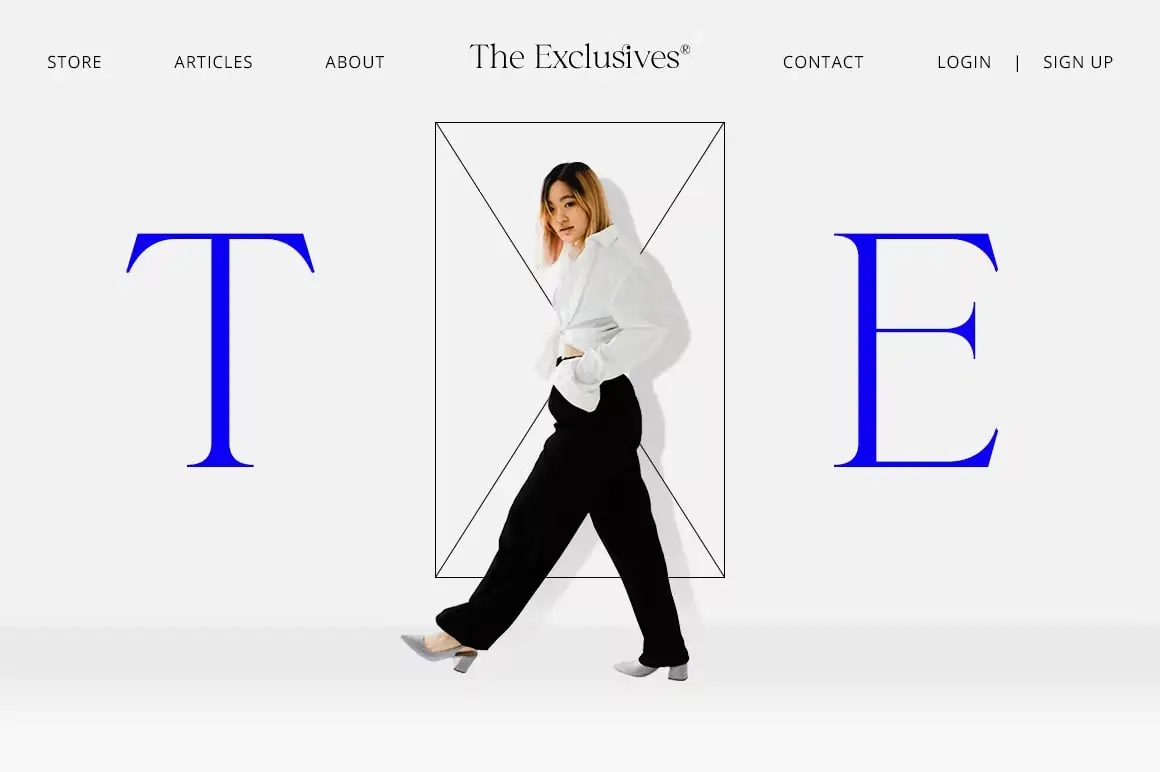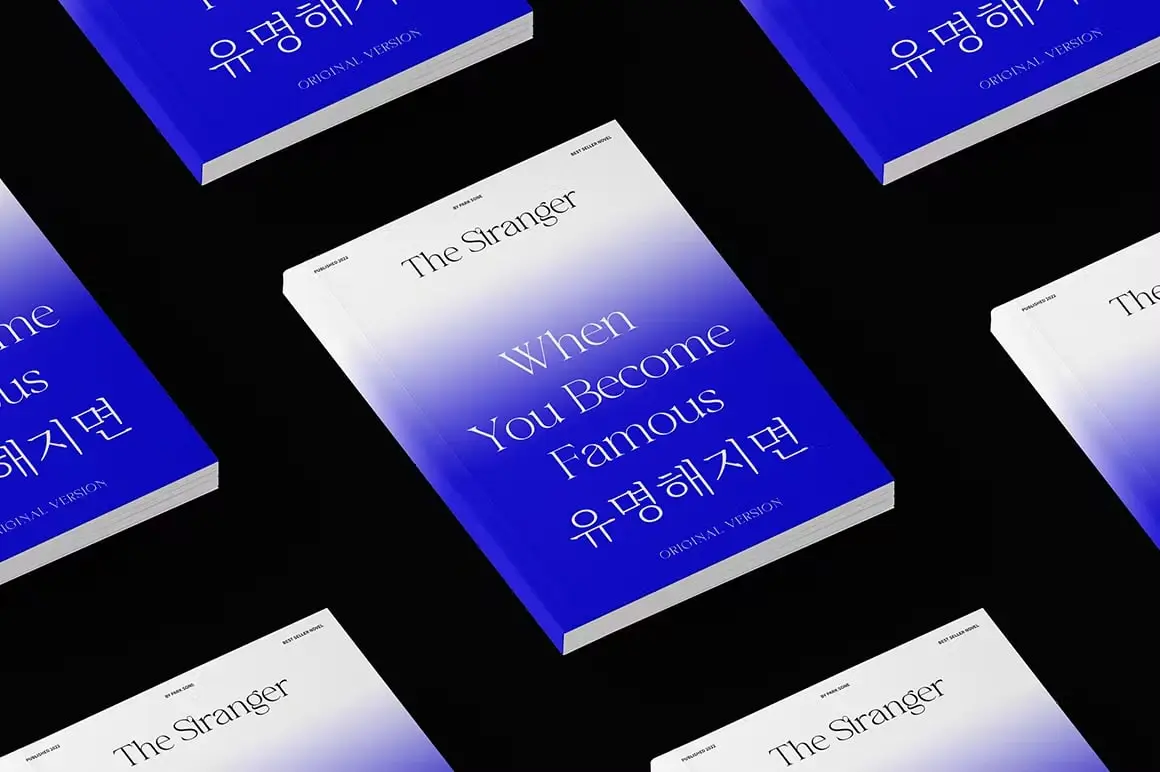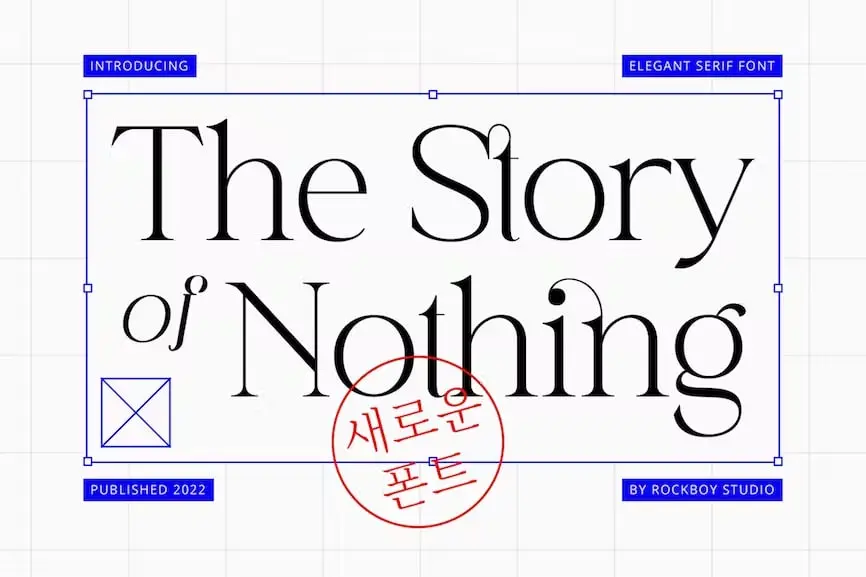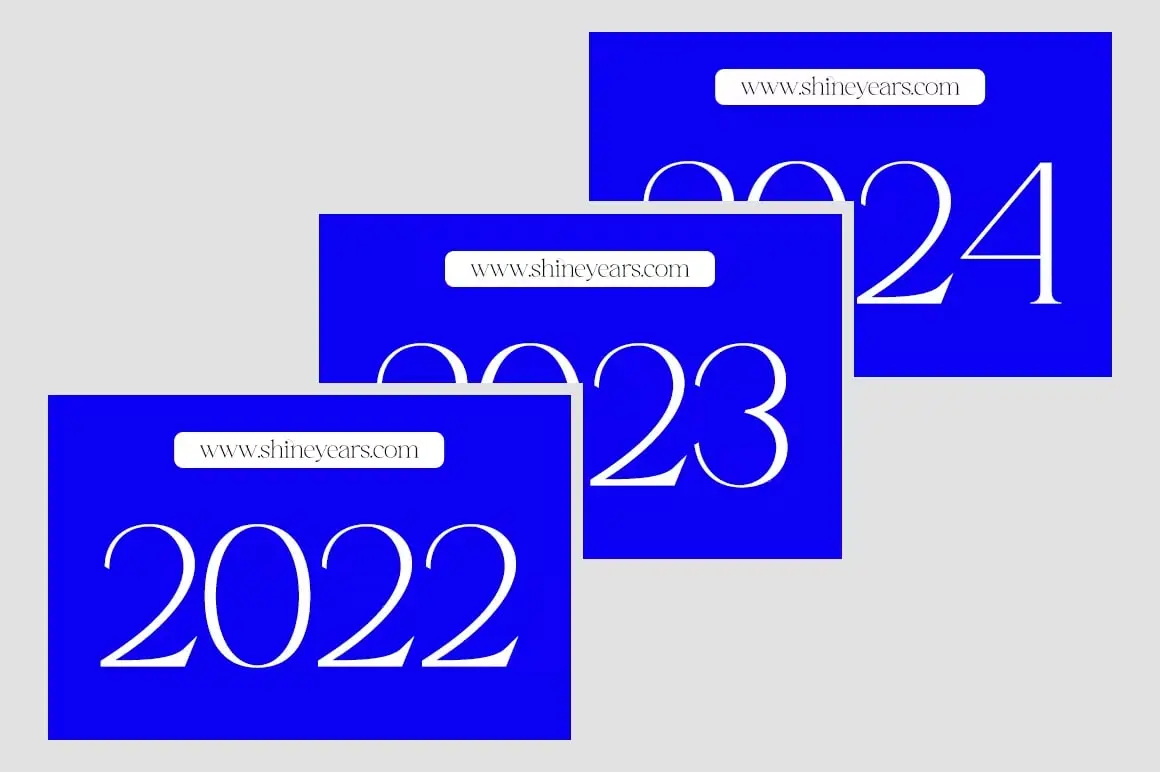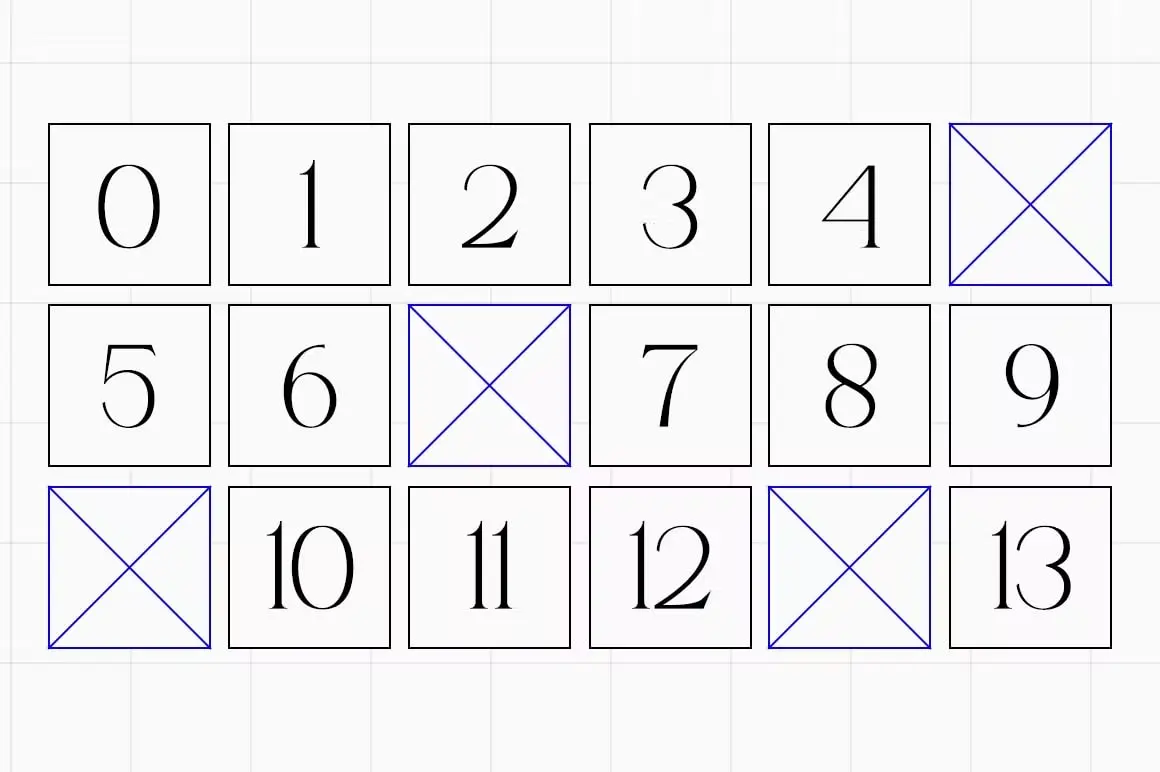
The Story Of Nothing Font
The Story Of Nothing Font is a unique typeface that captures the essence of minimalism and creativity. With its clean lines and modern aesthetic, this font is perfect for a variety of applications, including branding, logos, web design, and print materials.
Utilize The Story Of Nothing Font for eye-catching headlines, engaging social media graphics, or elegant invitations. Its versatility makes it suitable for both digital and print projects.